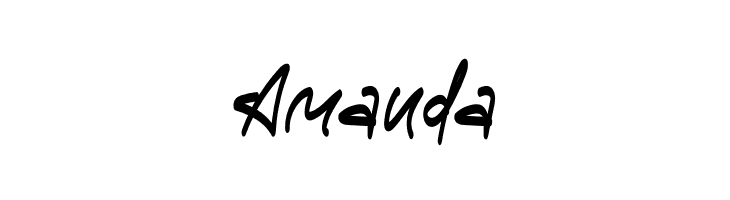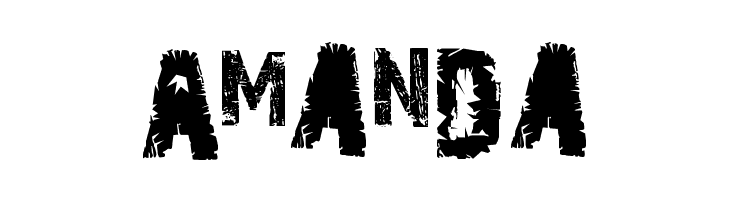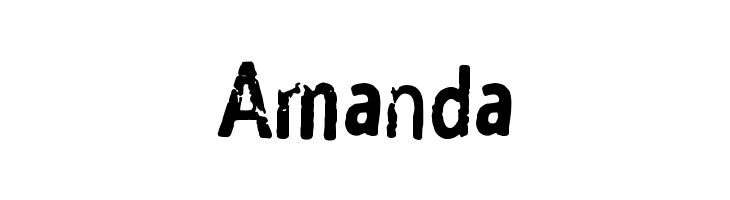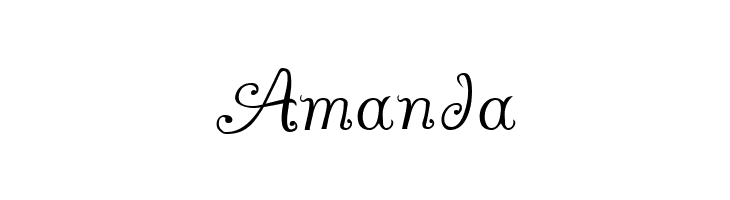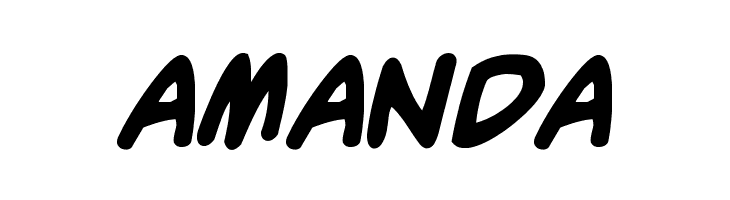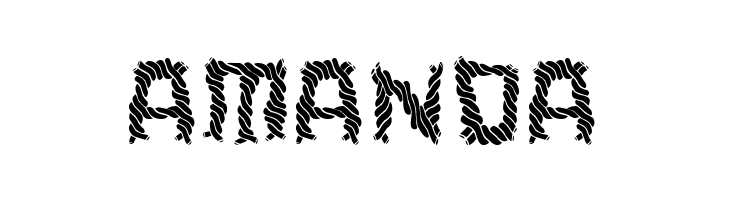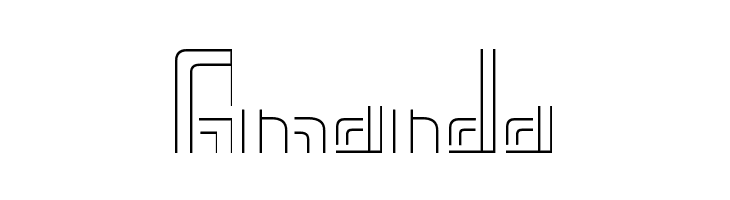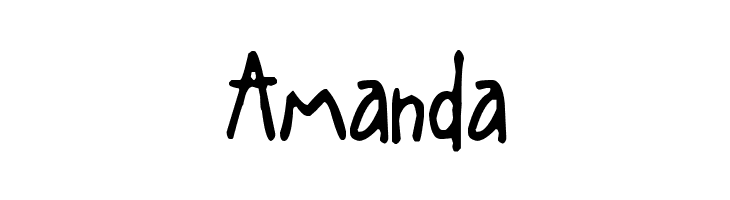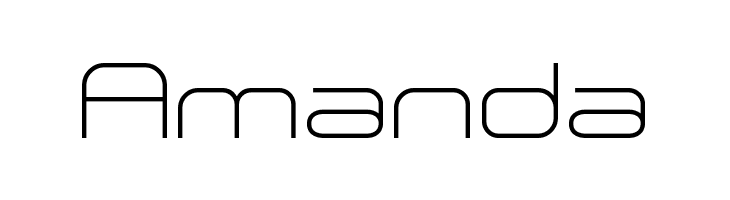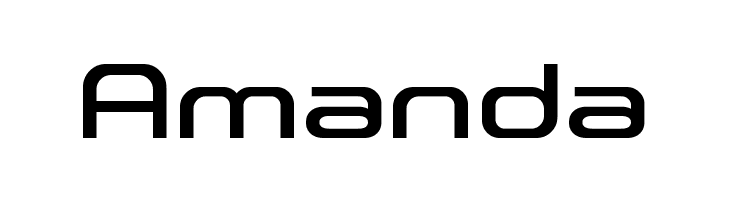
• A good day to die
A distressed, grunge-style font with a rugged, textured appearance.
• A Gothique Time
A gothic, distressed font with ornate and intricate letterforms.
• A HandMade Font
A playful and whimsical handwritten font with irregular strokes.
• A Little Mixed Up
A playful, rounded font with smooth, consistent strokes and a whimsical style.
• A Little Pot
A playful, hand-drawn font with a whimsical and friendly style.
• A Love of Thunder
A bold, distressed font with a vintage, rugged appearance.
• A Monster Free
An edgy, gothic font with claw-like serifs and a bold, dramatic style.
• A Mothers Love
A bold, expressive handwritten font with dynamic strokes and playful curves.
• A Perfect Place
A playful, handwritten font with smooth, flowing curves and interconnected letters.
• A Question
A lively, expressive handwritten font with fluid strokes.
• A Red Bucket
A playful, handwritten font with rounded, bubbly characters.
• a ripping yarn
A bold, textured font with a woven pattern, ideal for dynamic and modern designs.
• a ripping yarn too
A bold, textured font with a rope-like pattern, ideal for striking visual designs.
• A Smile Can Change The World
A playful, bold, and hand-drawn font with a whimsical charm.
• A Song For Jennifer Bold Italic
A bold, italic serif font with a classic yet modern appeal.
• A Song For Jennifer Bold Reg
A bold, slightly distressed serif font with a hand-crafted feel.
• A Song for Jennifer Italic Reg
A bold, italicized font with a textured, hand-drawn appearance.
• A Trip To Hell And Back
• A Truer Blue
A playful, hand-drawn font with irregular, whimsical letterforms.
• A Yummy Apology
An elegant, decorative script font with intricate swirls and embellishments.
• A-C-M-E--Explosive-
• A-C-M-E--Explosive--Bold